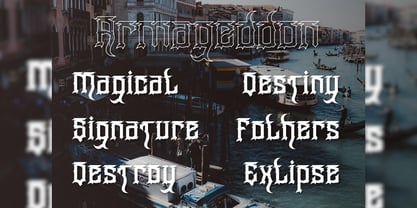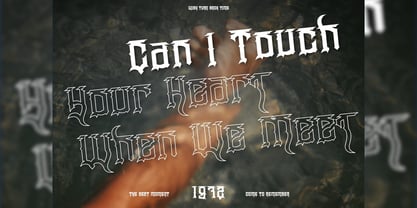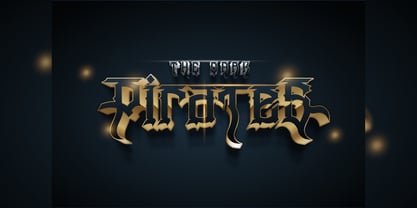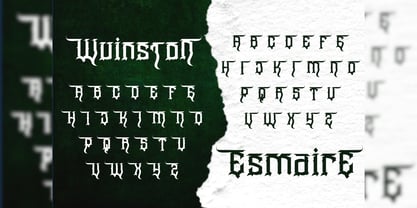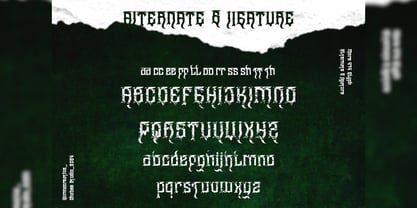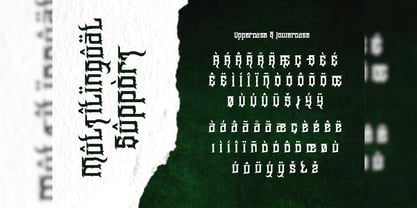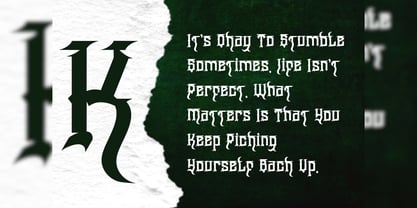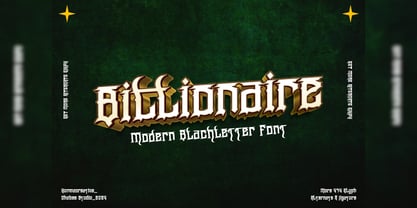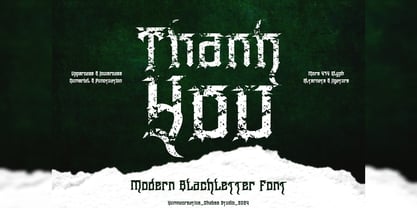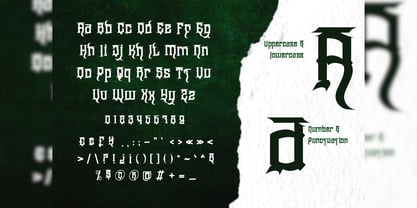
Wangor Asfrac
by Yumnacreative
The Wangor Asfrac Font Family was designed by Dhimas Habibie and published by Yumnacreative. Wangor Asfrac contains 1 styles. More about this family
Introducing Wangor Asfrac - Modern Blackletter Font
This Font is a delicate, elegant and flowing handwritten font. It has beautiful and well as a unique blend of ligatures a letter, so that the authors compose it with a and little swirly embedding, so that a modern font is formed and ready to make a statement by adding elegant and unique flair to your next design project. Add it to your most creative ideas and notice how it makes them come alive!
FEATURES
- Uppercase and Lowercase letters
- Alternate and Ligature
- Numbering and Punctuations
- Multilingual Supports
Designers: Dhimas Habibie
Foundry: Yumnacreative